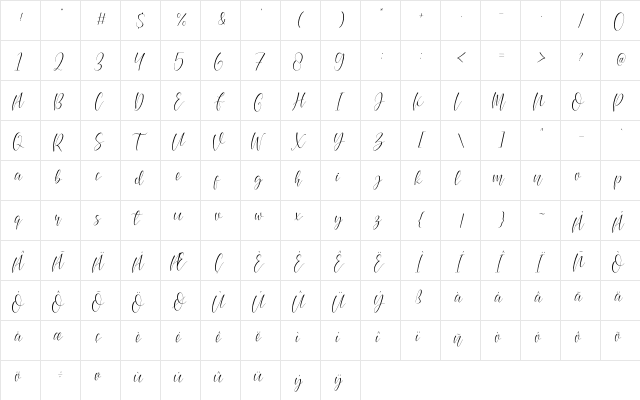
Beauty Amsterdam Regular Font Preview
Beauty Amsterdam Regular
Design Context for Beauty Amsterdam Typeface
Beauty Amsterdam takes a measured approach to typography — its balanced proportions and neutral character make it a reliable workhorse for both digital and print work.